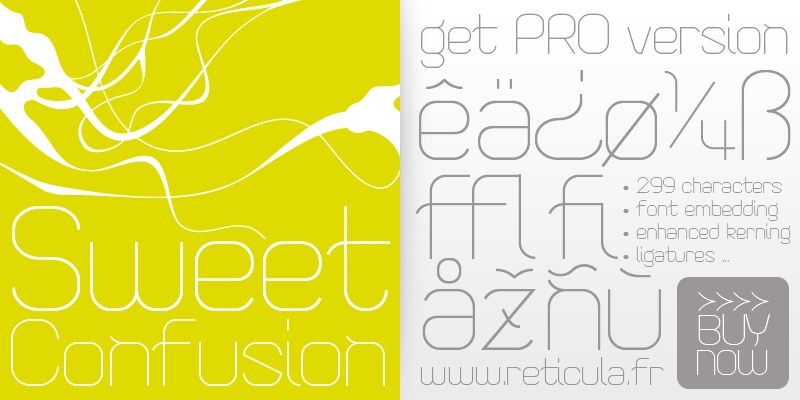
Sweet Confusion Light is a free modern display font with a remarkably fine monoline build, rounded corners, and almost no change in stroke weight. Its tall letters combine broad arches with narrow joins and compact curves. Several shapes reduce familiar forms to long verticals and smooth semicircles, so the alphabet feels sleek but slightly eccentric.
Fashion labels and design studios are its clearest branding territory. On cosmetics packaging, editorial covers, and event posters, the wire-thin curves can extend into borders or simple line illustrations, turning the lettering into part of the graphic motif.